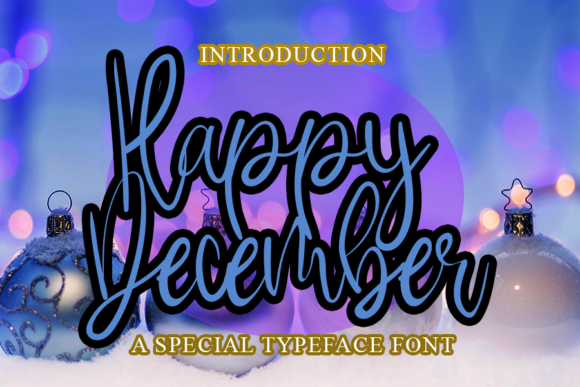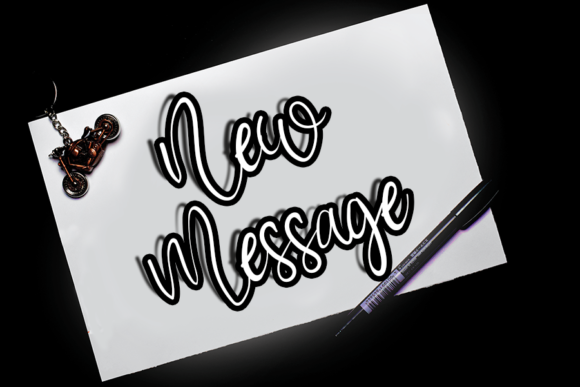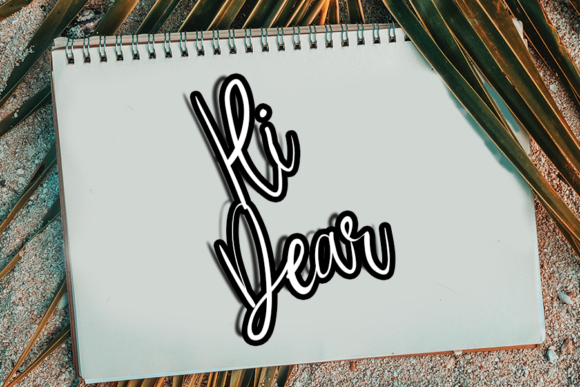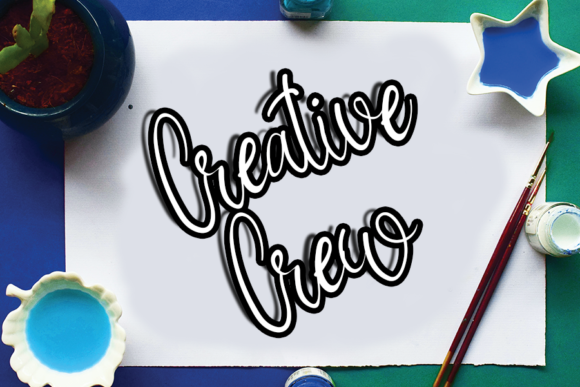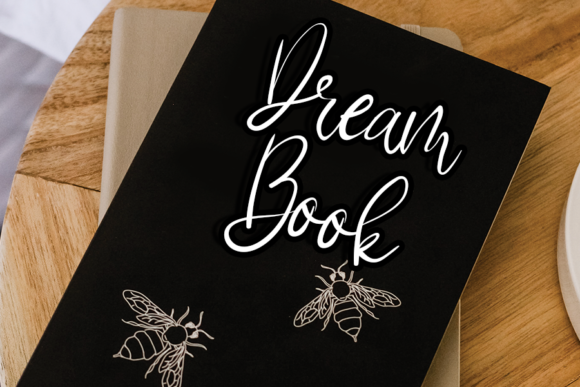
Get Ready to Deck the Halls with Joy and Creativity
Have you ever sat down with a blank piece of paper and a spark of inspiration, only to let it fizzle out as you reach for the usual fonts? I know I have. But what if you could capture that spark and bring it to life in a way that feels truly unique and special? That’s where the Happy December Font comes in – a fun and quirky handwritten font that’s perfect for adding a personal touch to your crafting projects.
This delightful font is more than just a pretty face – it’s a tool that can help you express your creativity and add a dash of whimsy to your designs. Whether you’re a seasoned designer or a DIY enthusiast, the Happy December Font is a valuable addition to your toolkit. With its playful, handwritten style, you’ll be able to create projects that feel truly one-of-a-kind and full of personality.
Happy December Font Key Features
- Unique Characteristics: The Happy December font features a unique, playful design with festive elements, making it perfect for holiday-themed projects, such as Christmas cards, invitations, and social media graphics.
Happy December Font Review
Overall, I think the Happy December Font is a great addition to any designer’s toolbox. ✨ It’s a fun, playful font that’s perfect for holiday-themed projects, like Christmas cards or gift tags. The font is well-designed, with a clear and readable style that’s easy on the eyes.
The font’s versatility is one of its strongest points. ✨ It works well in a variety of contexts, from headings to body text, and can be used in a range of design applications, from print to digital. The font also comes with a range of stylistic sets, which allow designers to add extra flair and personality to their designs.
- ⚠️ The font’s limited character set may be a drawback for some designers, particularly those working on complex or technical projects. While the font is perfect for holiday-themed designs, it may not be the best choice for more serious or formal projects.
- ⚠️ The font’s playful style may not be to every designer’s taste, and some may find it too frivolous or immature for certain projects.
Overall, I think the Happy December Font is a great choice for designers looking to add a touch of holiday cheer to their projects. While it may have some limitations, it’s a fun and versatile font that’s perfect for a wide range of design applications. Just be aware of its limitations, and use it in contexts where it will shine.
The Happy December Font is perfect for creating festive and seasonal designs, such as holiday cards, invitations, and social media graphics.
For optimal results, use the font in conjunction with bright and bold colors to create a festive atmosphere.
Experiment with different font sizes and styles to add visual interest to your designs.